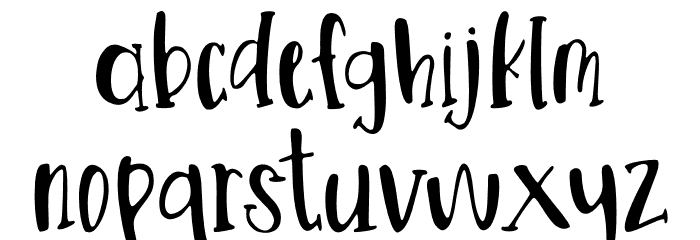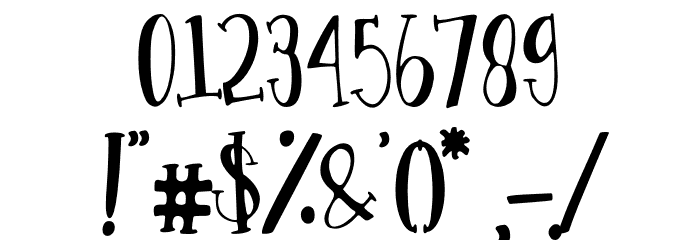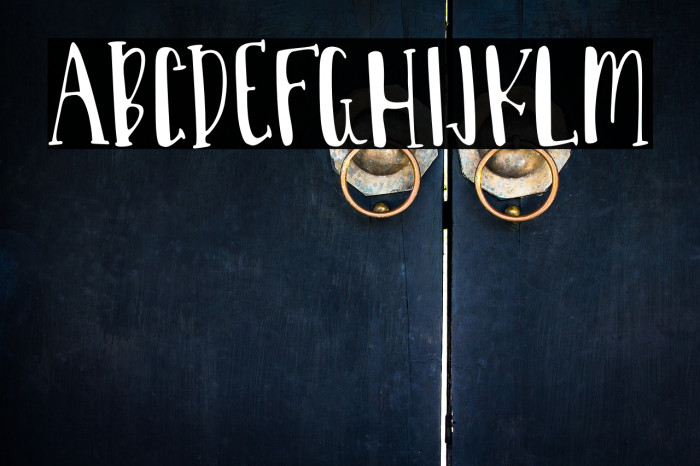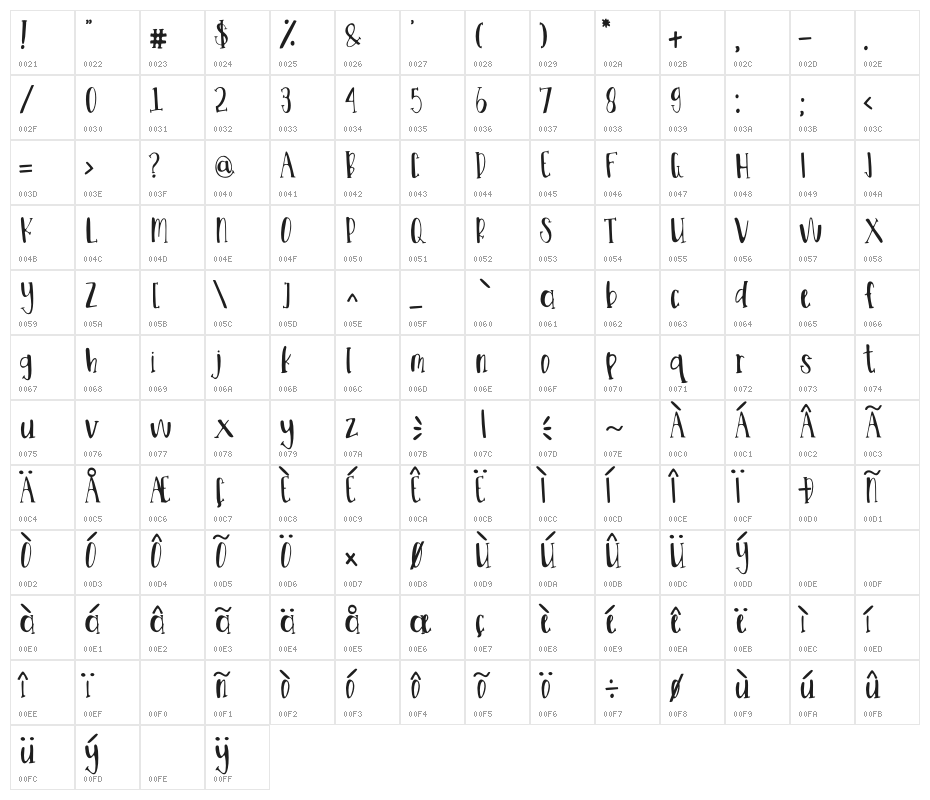
Better Font
This font features a playful and whimsical style with a handwritten appearance. The letters are slightly irregular, adding a charming and casual feel. The uppercase letters are bold and expressive, while the lowercase letters maintain a consistent flow. The numbers and special characters complement the overall style, making it versatile for various creative projects. The strokes are moderately thick, providing a medium contrast that enhances readability without sacrificing its artistic flair.
A playful, handwritten font with medium contrast and expressive characters.
- Proposed Projects: Ideal for greeting cards, children's books, playful branding, and creative posters.
- Use Case: Headlines, Logos, Creative projects